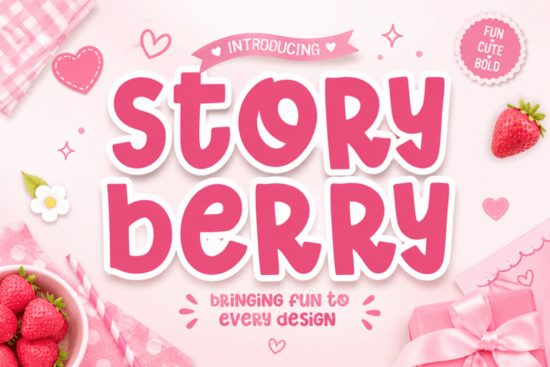
Storyberry Font is a standout choice for anyone looking to add a playful and bold touch to their designs. This handwritten display font brings a sense of fun and personality that can elevate everything from children's projects to branding materials. Its soft, rounded edges and bubbly style make it perfect for creating eye-catching visuals that feel warm and inviting.
Designed with both readability and visual impact in mind, Storyberry Font is ideal for a variety of creative applications. Whether you're working on digital graphics, print projects, or crafting with die-cutting machines like Cricut or Silhouette, this font delivers consistent quality and clarity. The smooth outlines and premium vector tracks ensure that every letter looks clean and professional, no matter the medium.
If you're a designer, crafter, or small business owner, Storyberry Font can be a valuable addition to your toolkit. Its bold and cute aesthetic makes it especially well-suited for projects targeting a younger audience or those looking to convey a sense of joy and creativity. From greeting cards to social media posts, this font adds a unique charm that stands out from more traditional typefaces.
What Makes Storyberry Font Stand Out?
One of the key features of Storyberry Font is its balance between playfulness and professionalism. The font’s organic shapes and rounded edges give it a friendly, approachable feel, while the thick strokes maintain a strong visual presence. This combination makes it versatile enough for both casual and more formal design needs.
Another advantage is its compatibility with popular crafting tools. The font is optimized for use with die-cutting machines, making it easier to create custom designs without the hassle of manual adjustments. This feature is particularly useful for print-on-demand sellers and hobbyists who want to streamline their workflow.
How to Use Storyberry Font in Your Projects
Storyberry Font works well in a range of design scenarios. For example, it’s great for creating eye-catching headlines, logos, or decorative text elements. Its bold style ensures that it remains legible even at smaller sizes, which is important for items like packaging or signage.
When using Storyberry Font, consider pairing it with simpler typefaces to create contrast and balance. This can help prevent the design from feeling too overwhelming, especially if you’re using it for longer text blocks. Experimenting with different color schemes can also enhance the font’s expressive qualities.
Final Thoughts
Storyberry Font is a reliable and expressive choice for designers and creators who want to add a touch of fun to their work. Its bold, playful style, combined with practical features like die-cut optimization, makes it a versatile tool for a variety of projects. Whether you're working on personal crafts or professional designs, this font can bring a fresh and cheerful energy to your creations.
If you're looking for a font that balances creativity with functionality, Storyberry Font is definitely worth considering. Try it out and see how it can transform your next project.